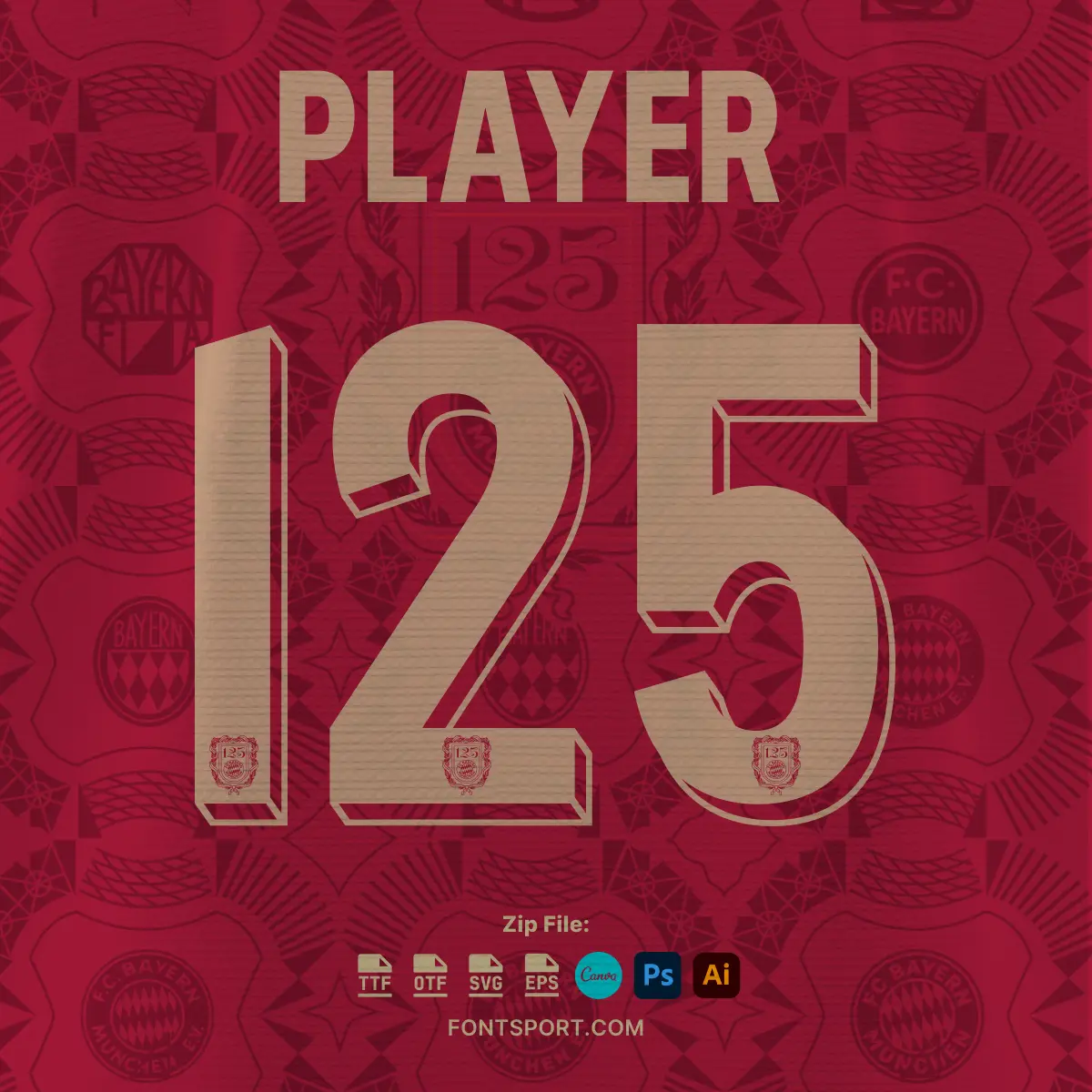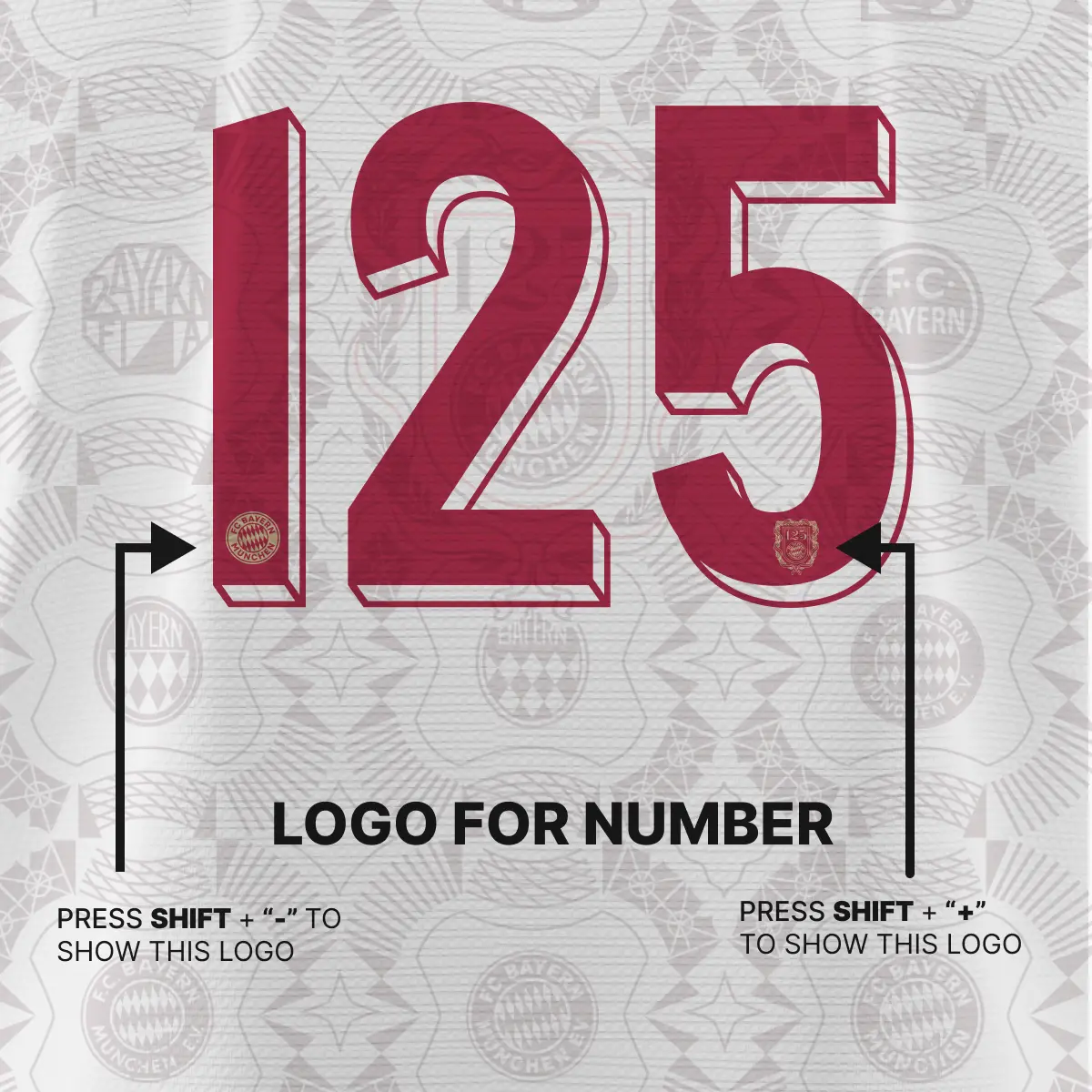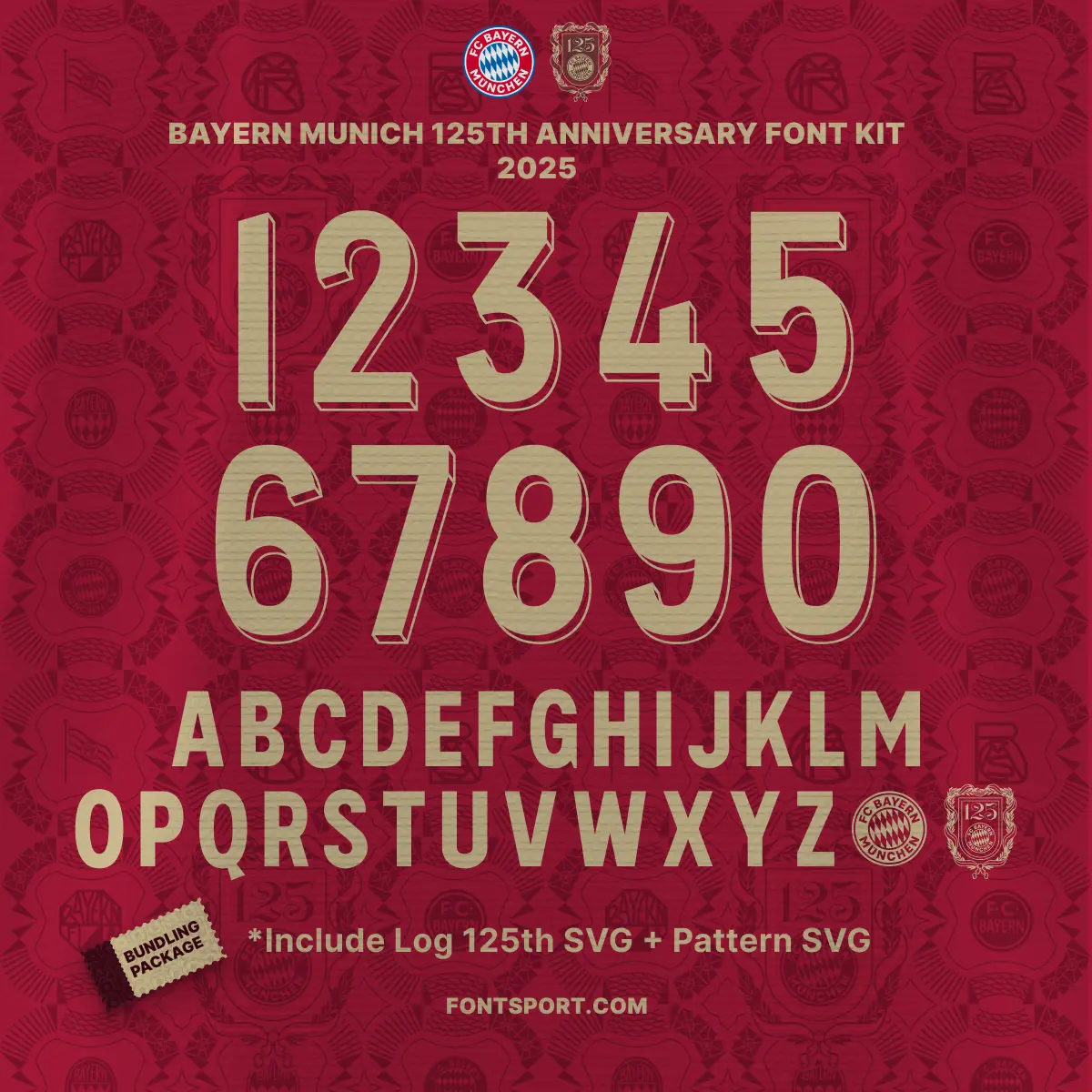
Bring the spirit of Bundesliga champions to your designs with the Bayern Munich Anniversary 125th 2025 Font Kit — a bold, sporty typeface crafted to honor one of the most iconic football clubs in the world.
Exclusively designed for Bayern Munich’s 125th Anniversary, this bold font kit captures the club’s legendary journey through football history. It includes SVG logos and patterns inspired by Bayern’s evolving emblems — from classic to modern — celebrating decades of triumph and identity in every detail.
Bayern Munich is not just a football club; it’s a symbol of legacy, dominance, and innovation in the Bundesliga and beyond. This special edition font kit is a tribute to more than a century of unforgettable moments — championship wins, legendary players, and a visual evolution that fans across generations recognize. Each element in this font set reflects the club’s transformation, especially through the detailed logo timeline now embedded in the SVG assets.
• ✅ Full A–Z uppercase letters & 0–9 numbers
• Built-in anniversary logo glyphs — type to reveal!
Bring the energy of Germany’s football powerhouse into your work with a font that blends tradition and modern style. The Bayern Munich Font Kit is more than a typeface — it’s a story told through design, created to honor 125 years of football excellence.
-= Inspired by the official Bayern Munich Anniversary 125th font used in the 2025 Bundesliga matches. =-